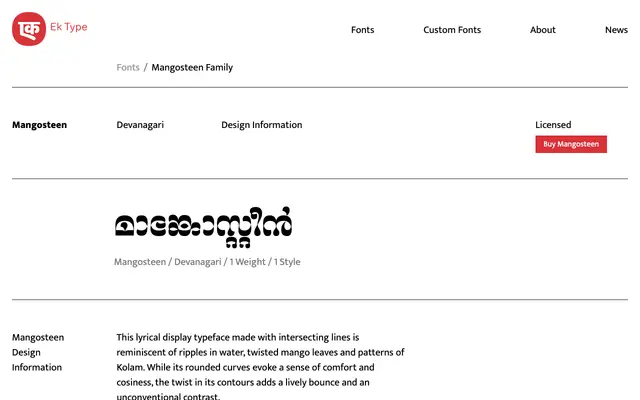
Mangosteen
A high-contrast display typeface drawing on intersecting lines, Kolam patterns and the forms of twisted mango leaves for decorative and editorial use.
Rounded curves give the design warmth and approachability, while the twist in its contours introduces an unconventional contrast that keeps it lively. Added motifs and borders extend its range to magazine pages, romantic film posters, brand identities and printed invitations. Available in Latin, Devanagari and Malayalam, it reflects EK Type's focus on multilingual South Asian type design.
A high-contrast display typeface with intersecting lines, motifs and borders, designed explicitly for decorative and expressive use rather than extended text setting.